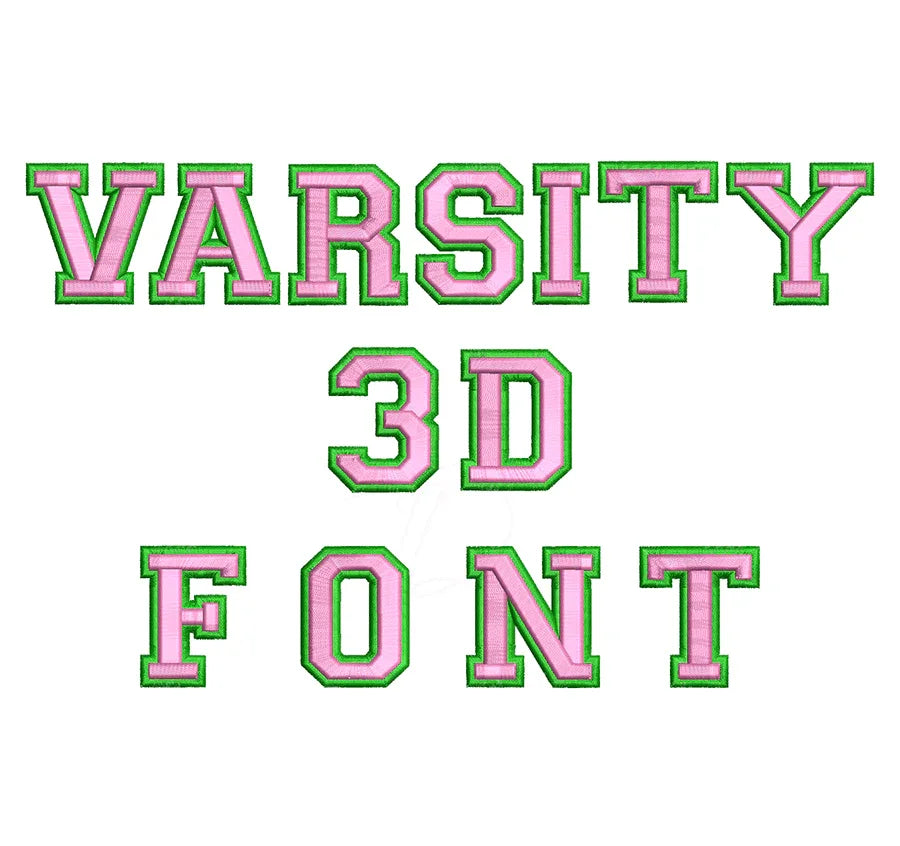
Top 10 3D Puff Embroidery Fonts for Caps & Hats (2026)
What Makes a Great 3D Puff Font for Hats?
Before diving into our picks, here's what to look for:
- Bold, thick letterforms — thin strokes don't hold foam well
- Clean edges — sharp satin stitches give the best puff effect
- Multiple sizes — flexibility for different hat placements
If you're looking to add bold, eye-catching dimension to your embroidered caps and hats, 3D puff embroidery fonts are the ultimate choice. Unlike flat embroidery, 3D puff uses foam underneath the stitches to create a raised, three-dimensional effect that makes lettering pop — perfect for snapbacks, beanies, trucker hats, and sports caps.
Top 10 3D Puff Embroidery Fonts
1. Varsity 3D Puff Embroidery Font
A classic varsity-style font with bold block letters — the #1 choice for sports caps and team hats. Includes BX file for easy use. The thick strokes hold foam perfectly for a crisp, raised finish.
Best for: Sports teams, letterman caps, school hats
2. Team 3D Puff Embroidery Font
Built specifically for team branding, this font delivers strong, uniform letterforms that look sharp on structured caps. Great for bulk orders and uniform embroidery.
Best for: Team uniforms, club hats, corporate caps
3. Algerian 3D Puff Embroidery Font
An ornate, decorative font with a vintage feel. The Algerian style adds personality and flair — ideal for boutique hats and fashion-forward designs.
Best for: Boutique caps, fashion hats, custom gifts
4. Fancy 3D Puff Embroidery Font
Elegant curves meet 3D puff technology. This font brings a premium, upscale look to any hat — perfect when you want something beyond the standard block letter.
Best for: Luxury caps, bridal party hats, special occasions
5. Sparkling 3D Puff Embroidery Font
Add some sparkle to your hat game! This font features decorative details that catch the light beautifully when stitched in metallic thread over puff foam.
Best for: Glam hats, holiday caps, rhinestone combinations
6. Vital 3D Puff Embroidery Font
A strong, modern sans-serif with excellent readability at small sizes. Vital is a workhorse font — clean, professional, and versatile for any hat style.
Best for: Everyday caps, business branding, minimalist designs
7. Farm 3D Puff Embroidery Font
Rustic charm meets 3D dimension. The Farm font has a warm, handcrafted feel that works beautifully on trucker hats and country-style caps.
Best for: Trucker hats, farm brands, country lifestyle caps
8. Square 3D Puff Embroidery Font
Bold geometric letterforms with sharp, squared edges. This font makes a strong statement and holds foam exceptionally well thanks to its thick, uniform strokes.
Best for: Streetwear caps, urban fashion, bold branding
9. Shadow 3D Puff Embroidery Font
A dual-layer design that creates a shadow effect alongside the 3D puff — giving your lettering extra depth and dimension. Truly eye-catching on structured caps.
Best for: Premium caps, show pieces, high-impact designs
10. Shadow 3D Puff Font with BX File
Tips for Perfect 3D Puff Embroidery on Hats